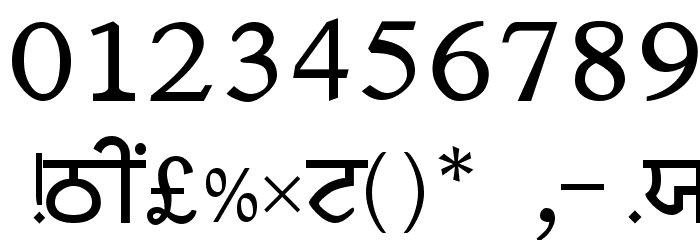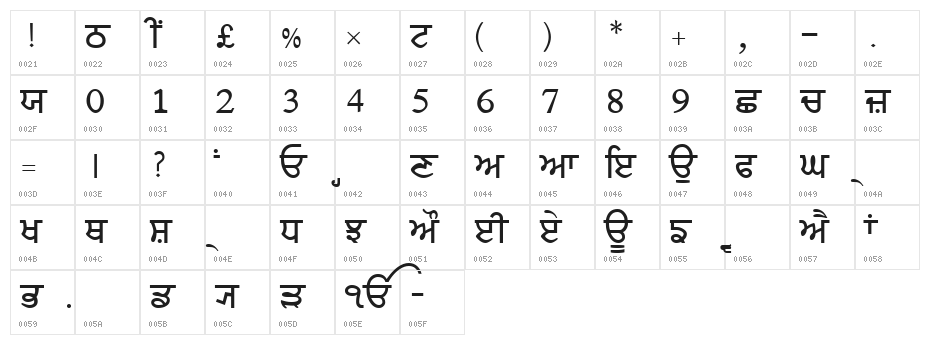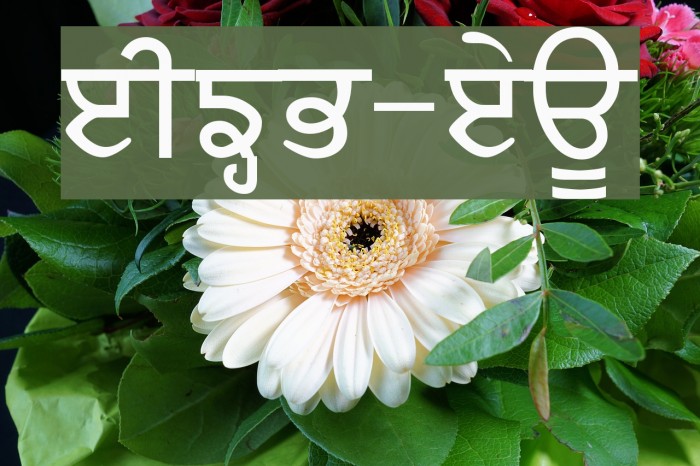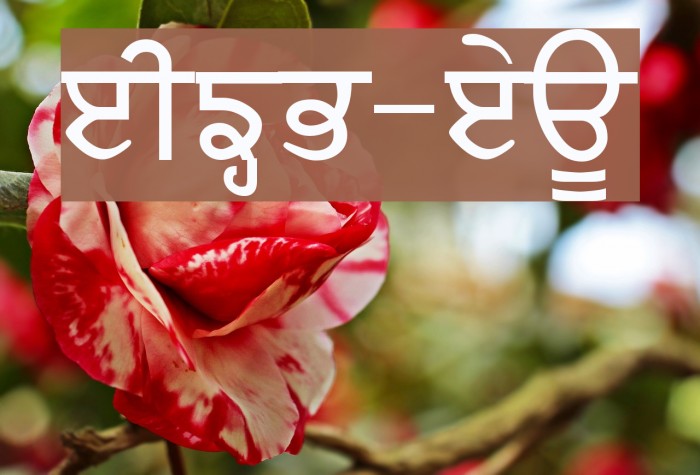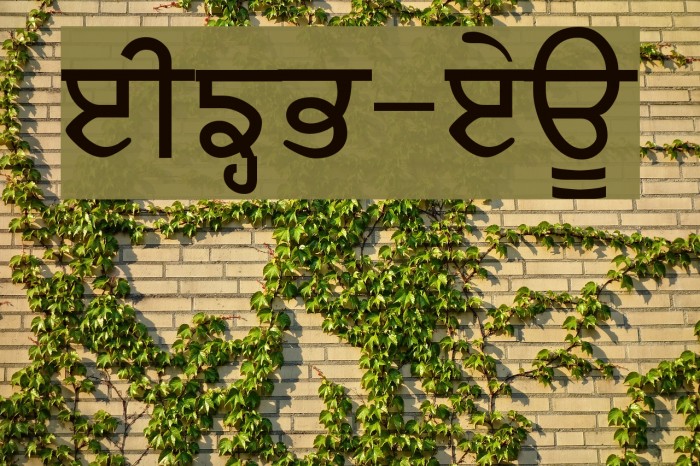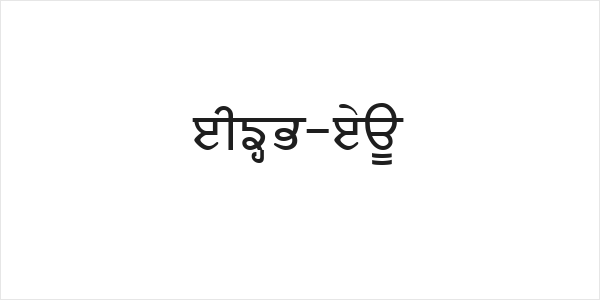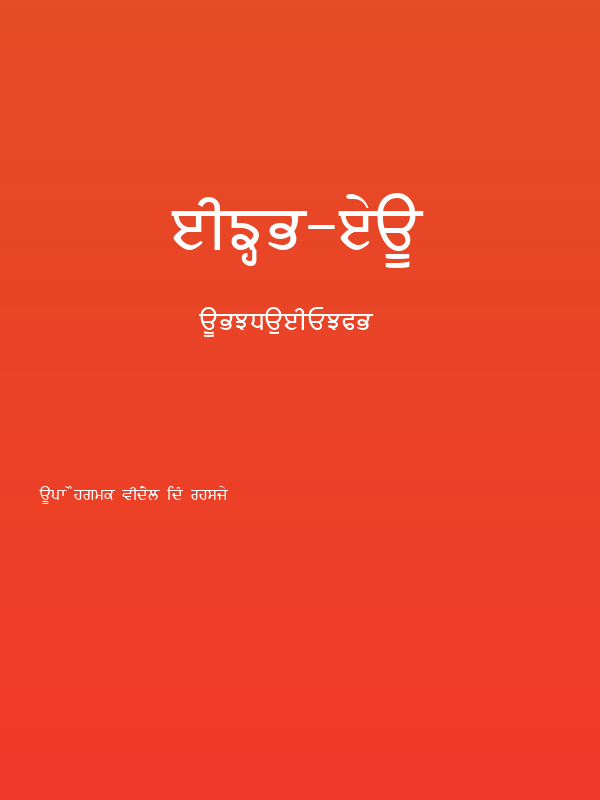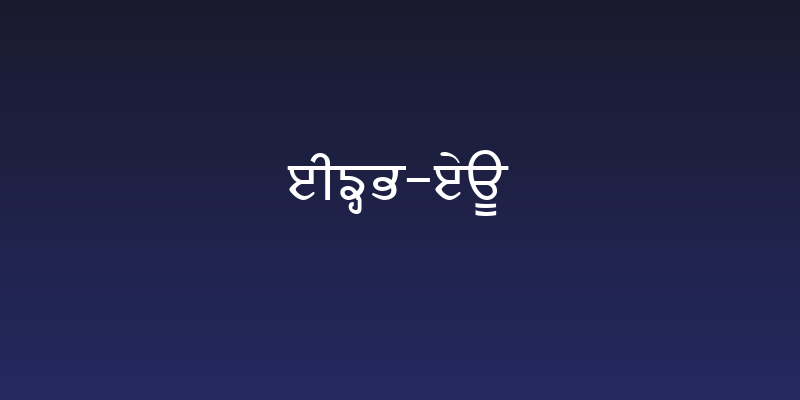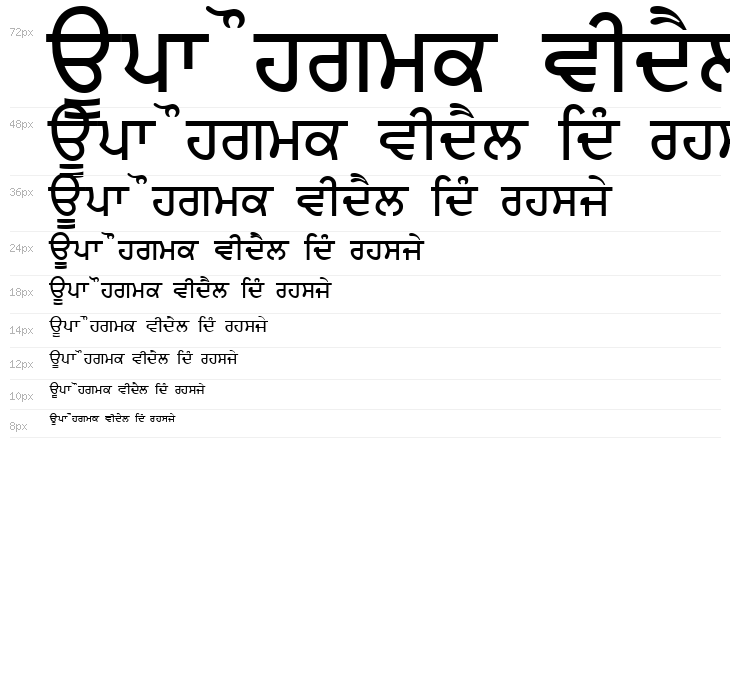
RUBY-ST Font
RUBY-ST Description
This font showcases a traditional script with a strong cultural heritage, characterized by its intricate and flowing letterforms. The characters are elegantly crafted with a distinct emphasis on curves and loops, giving it a unique and artistic appearance. The numerals and special characters maintain the same stylistic approach, ensuring consistency across the typeface. The overall design is both decorative and functional, making it suitable for a variety of applications where cultural expression is desired.
| Overall Style | Traditional, Artistic |
| Use Case | Headlines, Artistic projects, Cultural publications |
| Proposed Projects | Ideal for cultural publications, traditional event invitations, and artistic projects that require a touch of heritage. |